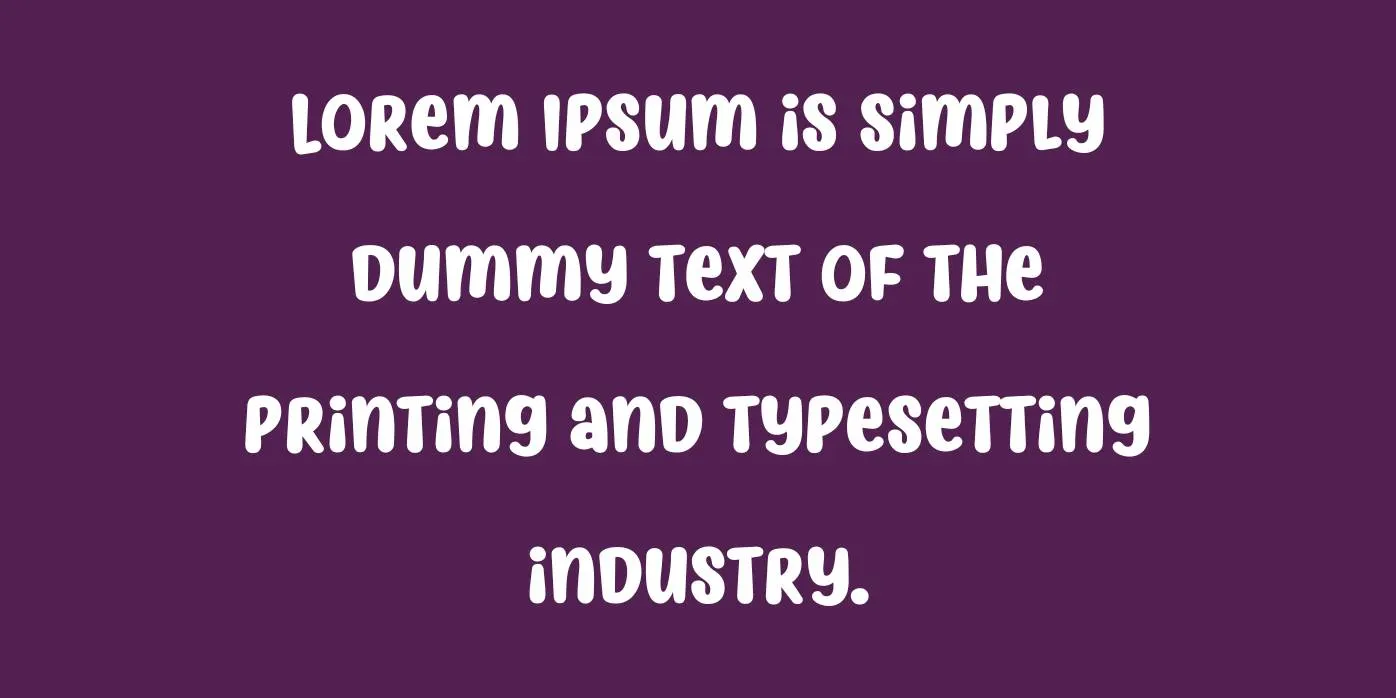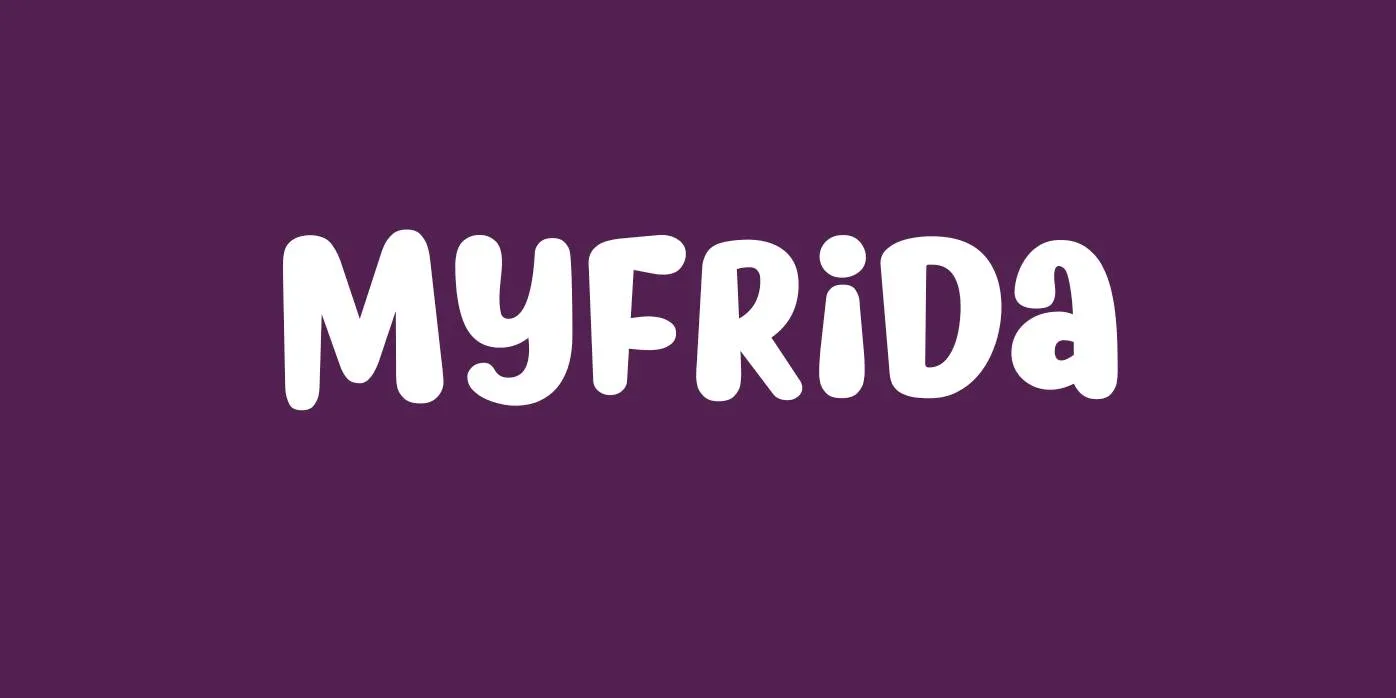
Myfrida Font
MYFrida Font contains 226 characters, 228 glyphs, and 2048 units per Em. It was designed by Situjuh Nazara and manufactured by 7NTypes. The weight of the font is Medium (normal) and the width is also medium. The patterned nature of this font is regular and its pitch is not monospaced.
An online generator tool also supports this font through which you can change simple text into a stylish look without downloading the font. It can also be paired with other fonts like pobble font to give a more attractive and stylish look to your projects.  This font supports file formats TTF and OTF. It can be downloaded on many devices such as Windows, MAC, Linux, and Android. Usage This stunning typeface is a very cute and adorable fancy font.
It can be used for making so many projects. It contains characters, small letters, capital letters, numbers, special characters, symbols, numbers, and punctuations. You can make awesome logo designs using this flubbed and soft-looking font.  It is a good choice for making kids-related projects which can be very attractive for them. This font is perfect for CSS, adobe Photoshop, Canva, and many other applications. You can make all types of marketing material projects using this font.  You can make wonderful website designs using this font.
Is MyFrida a good font for the website? Yes, it is a very good font for website designs and can be used for many personal and commercial projects. Is Myfrida a modern font? This font was indeed designed early 1990s but it is still a widely used font and can make all types of modern projects easily.
Can I use Myfrida Font in a Logo? Yes, It can be used for making logos in a versatile style. It is a good font for making all types of projects.